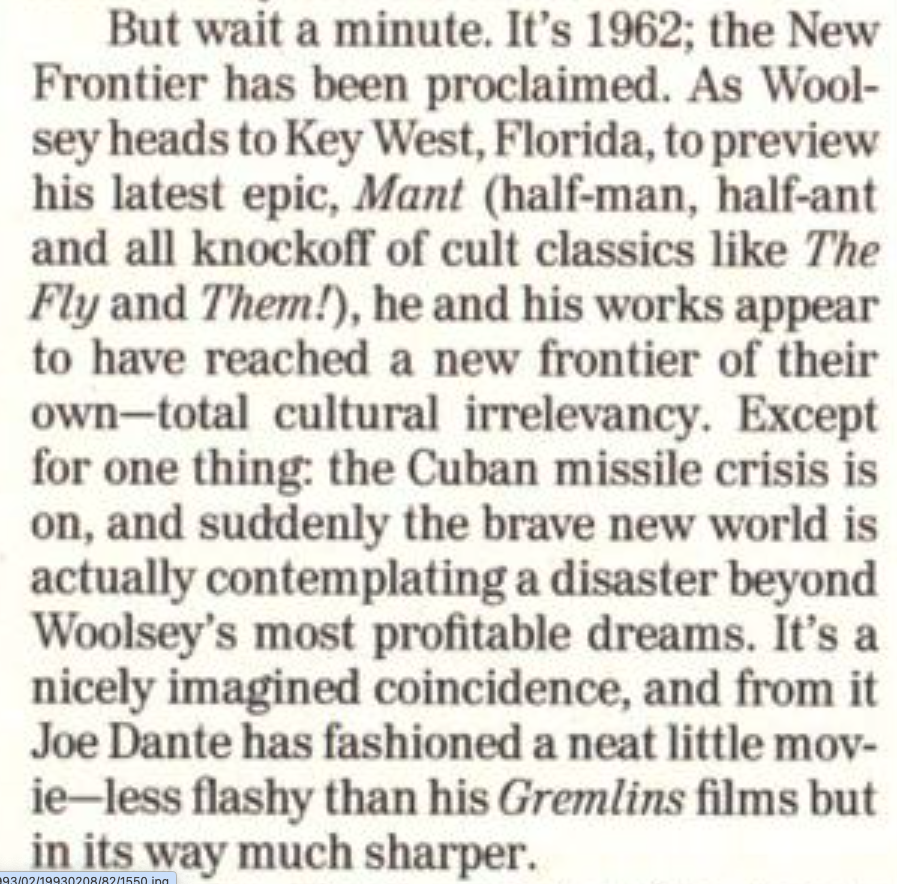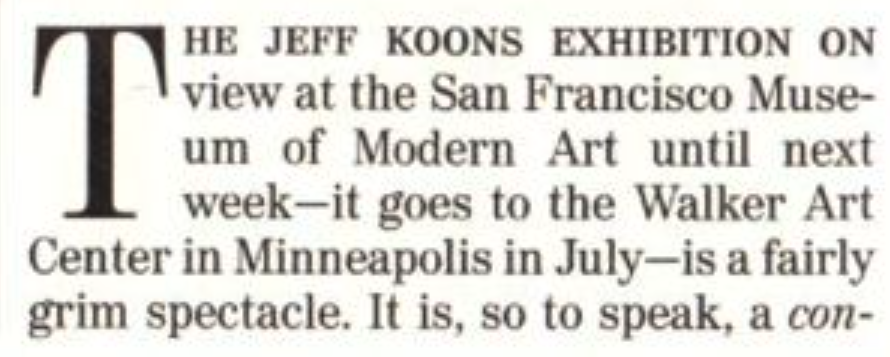
Body copy from Time magazine in 1993
Hello. Apologies for the lousy image, but I'm hoping someone can help me identify this typeface (from Time magazine in 1993). It's got something of Caledonia, something of Transitional, something of Century Old Style - but only something. Fingers crossed you can ID it... thanks in advance
Thanks Kevin. Centennial does come close, but the cap C isn't right...
I'm afraid I can't improve the quality of the image. But here's another one - chosen because it has a lowercase 'k' that looks awfully like Miller...
Thanks Ralf and Kevin. The image Ralf provided seems to confirm that it's Century 725/Madison.